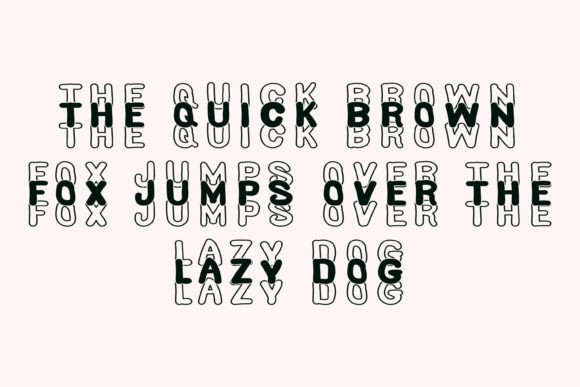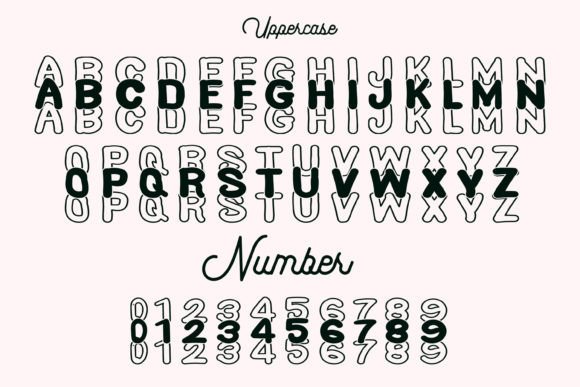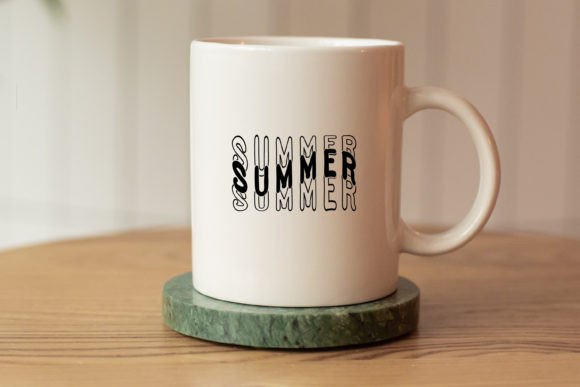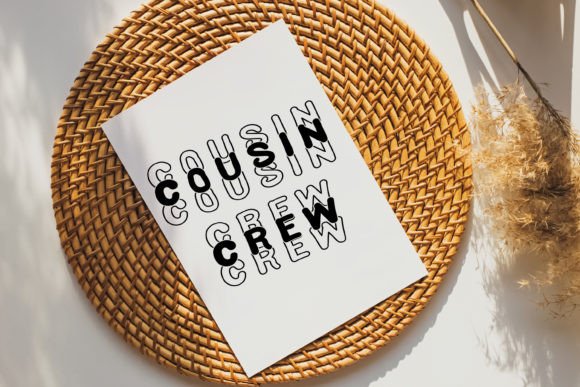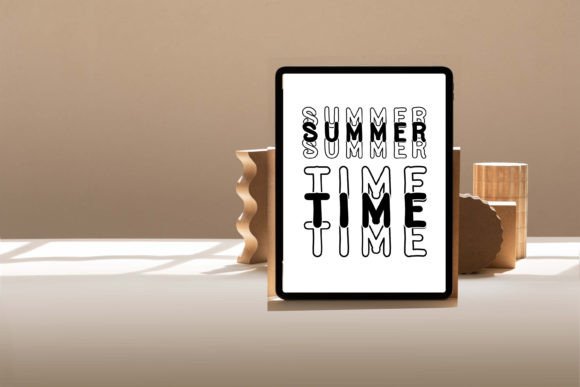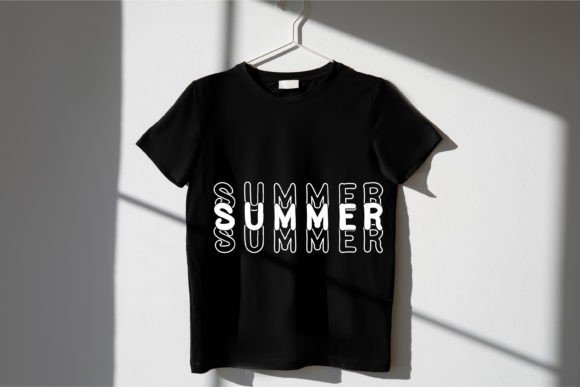
Introduction to Lokman Font
Do you remember that moment when you stumbled upon the perfect design element for your creative project, and suddenly, everything fell into place? For designers, this moment is a dream come true. Today, I’m excited to share with you one such game-changing design resource – the Lokman Font.
| 👤 Author | Quirkify |
This cool, incredibly cute, and stacked display font is a must-have for any designer looking to add a touch of youth and joy to their designs. Whether you’re planning a party invitation, a swimming gathering, or any other creative project, Lokman Font is sure to make it stand out.
Key Features of Lokman Font
- High-quality design resource with a unique and creative style, ideal for various projects
- Features a transparent background, allowing for seamless integration into creative projects
- Designed with a high resolution, making it suitable for use in a variety of applications, from print to digital media
Honest Review: Lokman Font
As a designer, I’m always on the lookout for high-quality design resources that can elevate my creative projects. Recently, I stumbled upon the Lokman Font, and I’m excited to share my honest review with you.
What works well: ✨ The Lokman Font has a unique and modern design that’s perfect for creative projects. The font is highly customizable, allowing you to easily adjust the size, color, and style to suit your needs. The transparent background is also a plus, making it easy to use on any design element.
Here are some of the key features that make the Lokman Font stand out:
- Customizable size, color, and style
- Transparent background for easy use on any design element
Limitations: ⚠️ While the Lokman Font is a great resource, it’s not without its limitations. The font is only available in a limited number of styles, which may not be suitable for all design projects.
Overall, I’m impressed with the Lokman Font and would definitely recommend it to designers looking for a high-quality design resource. With its unique design, customizable features, and transparent background, it’s a valuable addition to any design toolbox.
Lokman Font
The Lokman Font is a high-quality, free download font ideal for various creative projects. It features a transparent background, making it versatile for use in different design applications.
Tips for Getting the Most Out of Lokman Font
For optimal results, use the Lokman Font in combination with other design elements, such as graphics and images. Experiment with different font sizes, colors, and arrangements to achieve the desired look.
The Lokman Font is suitable for various design projects, including:
- Brochure design
- Infographic design
- Business card design
Alternatives to Lokman Font
While Open Sans is more straightforward than Lokman Font, it shares a similar approach to simplicity and clarity, making it an excellent choice for designers seeking a clean and readable font.
Lato is a high-quality, sans-serif font designed specifically for digital interfaces and creative projects. Its clean lines and modern design make it an excellent choice for designers seeking a free download with a transparent background.
Is the Lokman Font available with a transparent background?
Yes, the Lokman Font is available with a transparent background, making it ideal for use in design projects that require a high level of design flexibility. The transparent background allows designers to easily combine the font with other design elements, such as images or shapes, to create a unique and creative look.